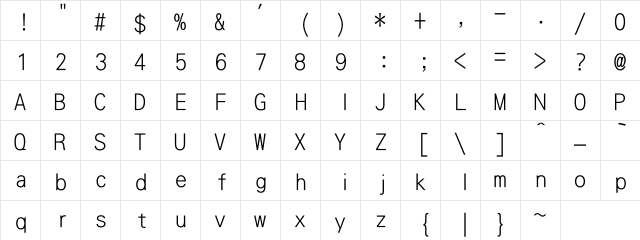
DFLiHeiU-Lt Regular Font Preview
DFLiHeiU-Lt Regular
Design Context for DFLiHeiU-Lt Typeface
DFLiHeiU-Lt offers clean, dependable letterforms without strong stylistic allegiance, making it a practical choice for designers who need flexibility. Its slender proportions lend an understated elegance to any composition.